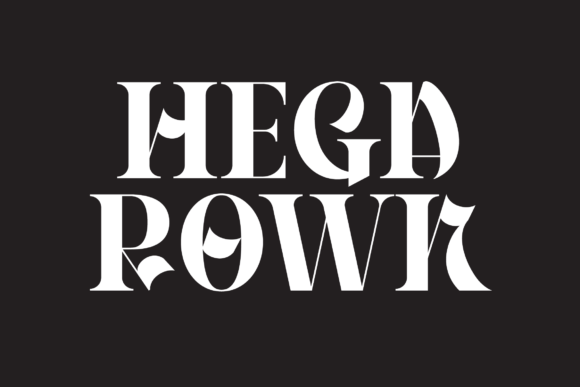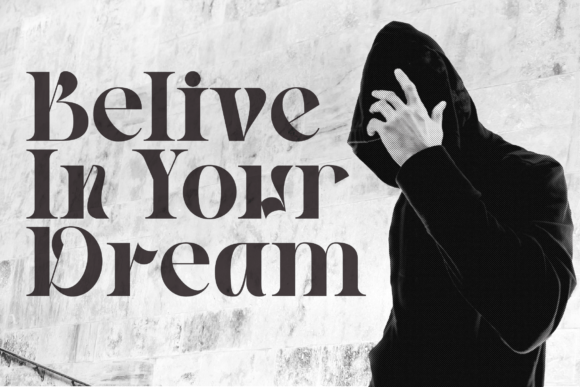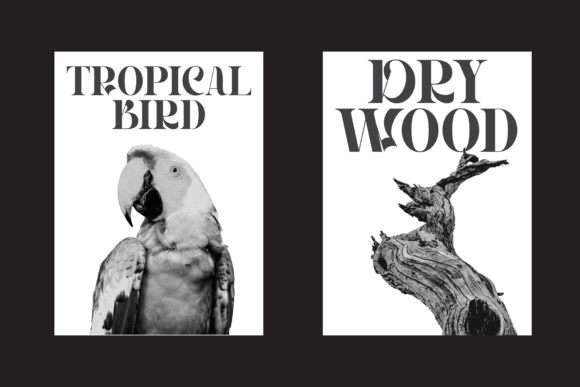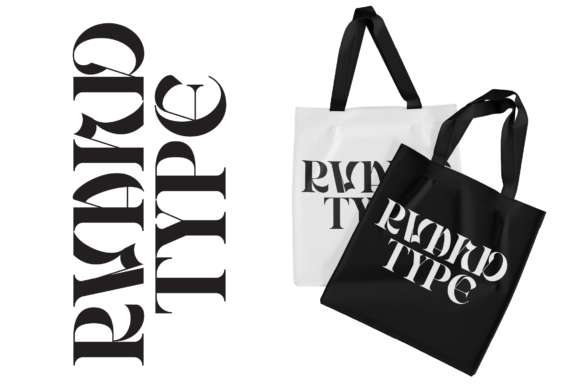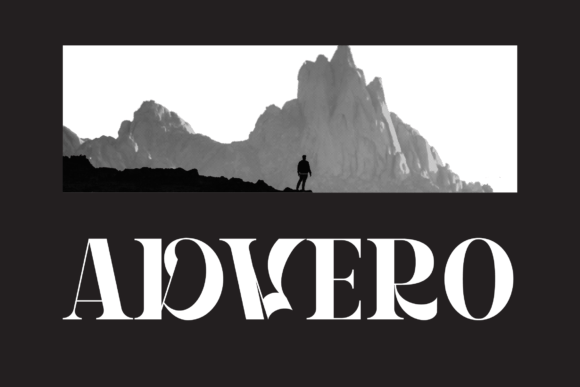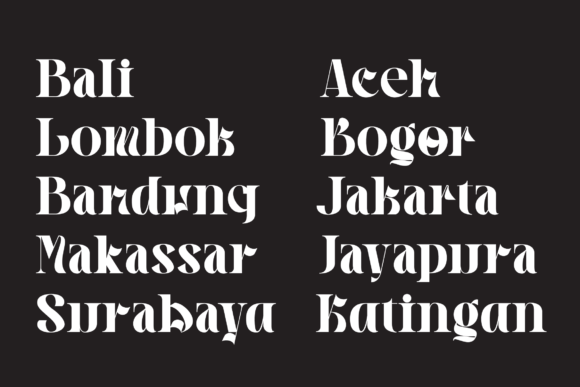
Introducing Hegarown Font: Elevate Your Designs with a Contemporary Twist
In the realm of typography, a font can make or break the visual appeal of a design. For creative professionals and crafty enthusiasts alike, finding the perfect typeface that resonates with their project’s tone and style is paramount. This is where Hegarown Font comes into play, a captivating display font that embodies a contemporary and cool aesthetic, making it an ideal choice for a wide range of creative projects.
The Versatility of Hegarown Font
Hegarown Font is not just another addition to the vast sea of typefaces; it’s a game-changer. Its versatility knows no bounds, making it a perfect fit for various design needs. Whether you’re designing logos that need to stand out, establishing brand identities that speak to your audience, crafting invitations that set the tone for an event, creating stunning stationery that leaves a lasting impression, shaping wedding designs that capture the essence of love, or producing eye-catching social media posts that engage and inspire, Hegarown Font is your go-to solution.
Contemporary and Cool Aesthetic
The defining feature of Hegarown Font is its contemporary and cool aesthetic. In a digital age where trends evolve at a rapid pace, having a font that feels both modern and timeless is invaluable. Hegarown strikes the perfect balance, offering a clean and crisp look that appeals to the sensibilities of today’s audience. Its unique style ensures that your designs don’t just blend into the background but stand out with a distinct flair.
Enhancing Creative Projects
For designers and crafters, the quest for a font that can elevate their projects is ongoing. Hegarown Font, with its distinctive charm, offers a multitude of possibilities. Here are a few ways it can enhance your creative projects:
- Logos and Brand Identities: Create memorable logos and brand identities that resonate with your target audience. Hegarown’s unique style ensures your brand stands out.
- Invitations and Stationery: Add a touch of elegance and sophistication to your invitations and stationery. Whether it’s a formal event or a casual gathering, Hegarown sets the right tone.
- Wedding Designs: Make your wedding designs truly special with a font that exudes love, joy, and celebration. Hegarown’s aesthetic is perfect for wedding invitations, banners, and more.
- Social Media Posts: Capture the attention of your audience with eye-catching social media posts. Hegarown’s contemporary look ensures your content stands out in crowded feeds.
Why Choose Hegarown Font?
Choosing a font for your project can be overwhelming, given the numerous options available. Here are a few reasons why Hegarown Font should be at the top of your list:
- Unique Style: Offers a distinctive look that sets your designs apart.
- Versatility: Suitable for a wide range of projects, from professional to personal.
- Contemporary Aesthetic: Ensures your designs feel modern and relevant.
- Easy to Read: Despite its unique style, Hegarown remains clear and readable, making it perfect for both headings and body text.
| Font Name | Hegarown Font |
| Author | Rvandtype |
In conclusion, Hegarown Font is a powerful tool for anyone looking to elevate their designs. Its contemporary and cool aesthetic, coupled with its versatility, makes it an indispensable asset for designers and crafters. Whether you’re aiming to create stunning visual content, establish a strong brand identity, or simply add a unique touch to your projects, Hegarown Font is the perfect choice. Embrace the world of limitless creativity with Hegarown, and watch your designs transform into captivating visual experiences.